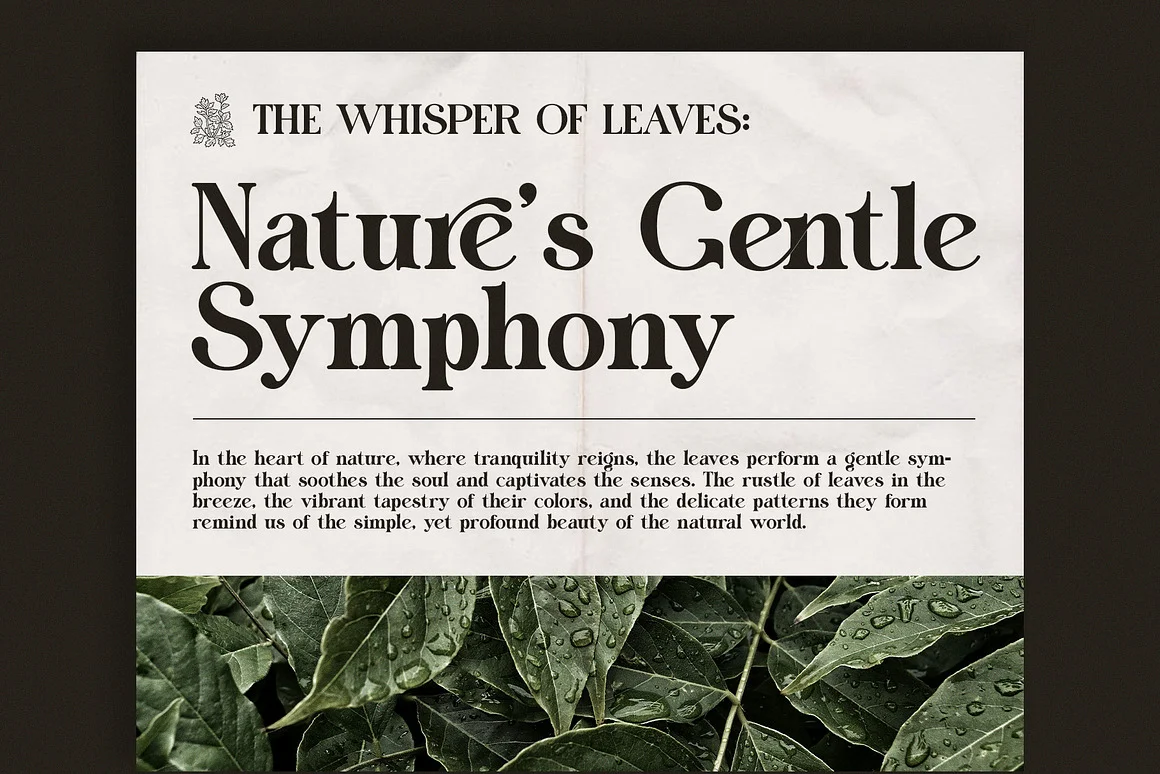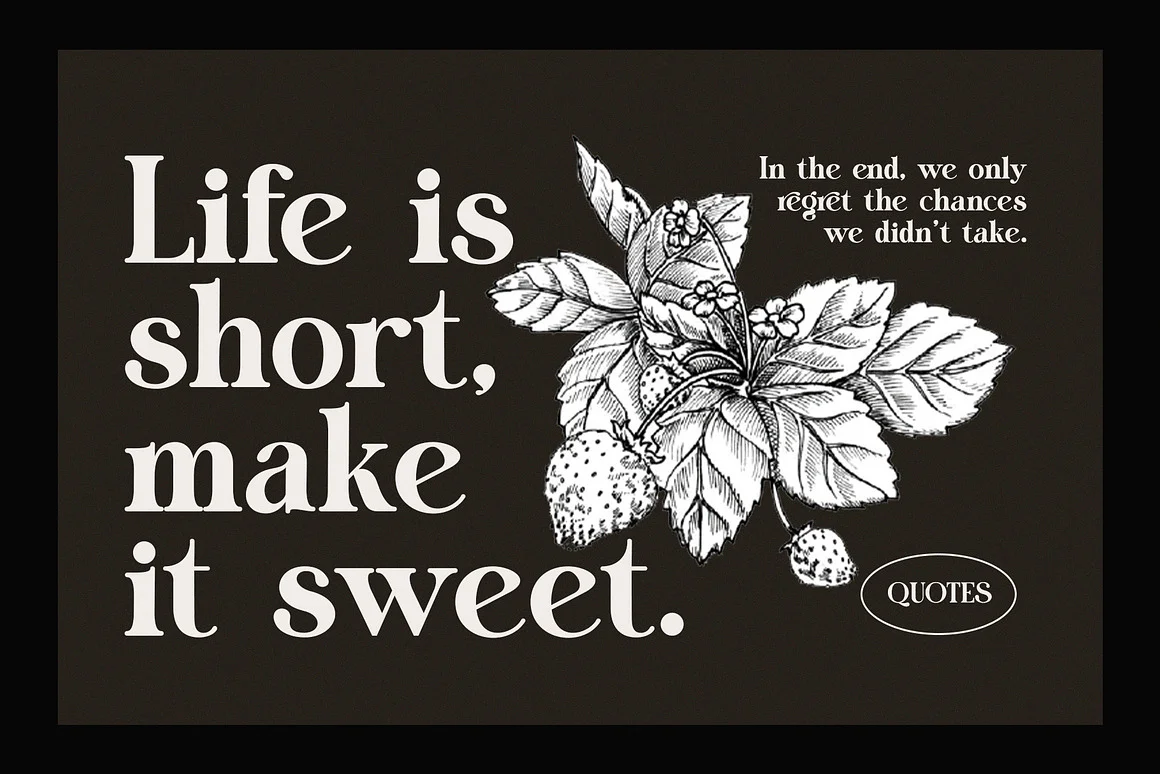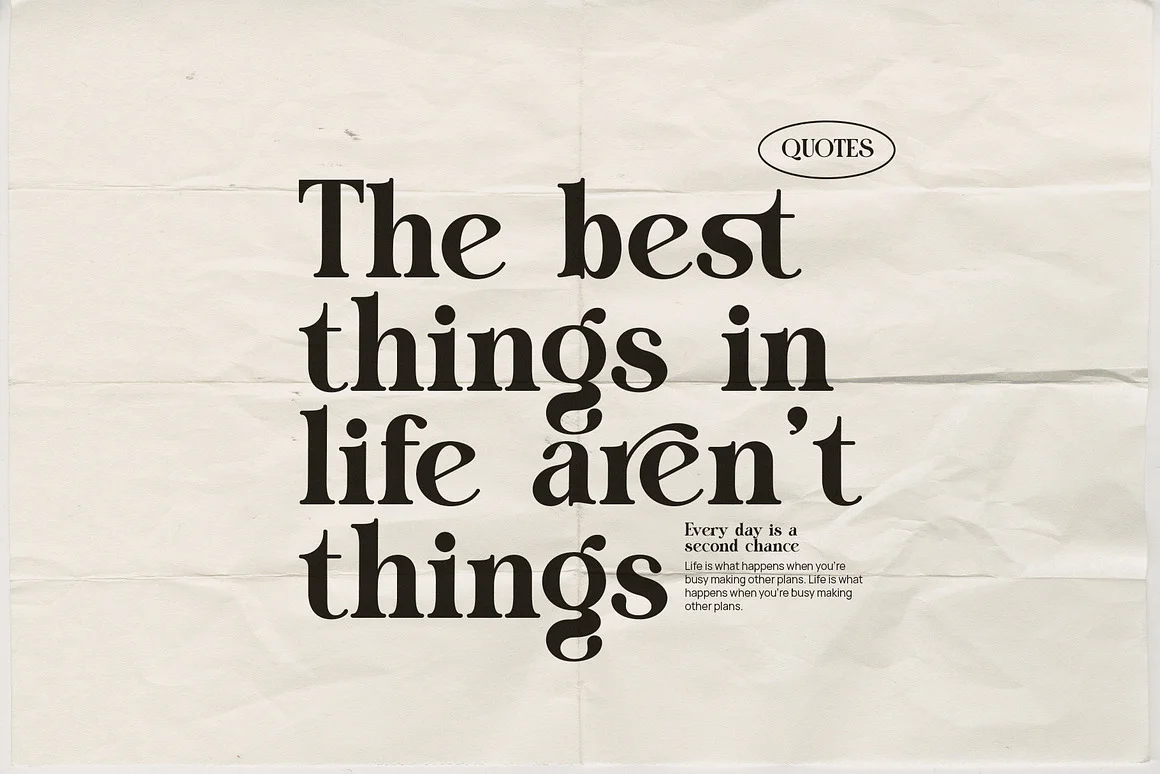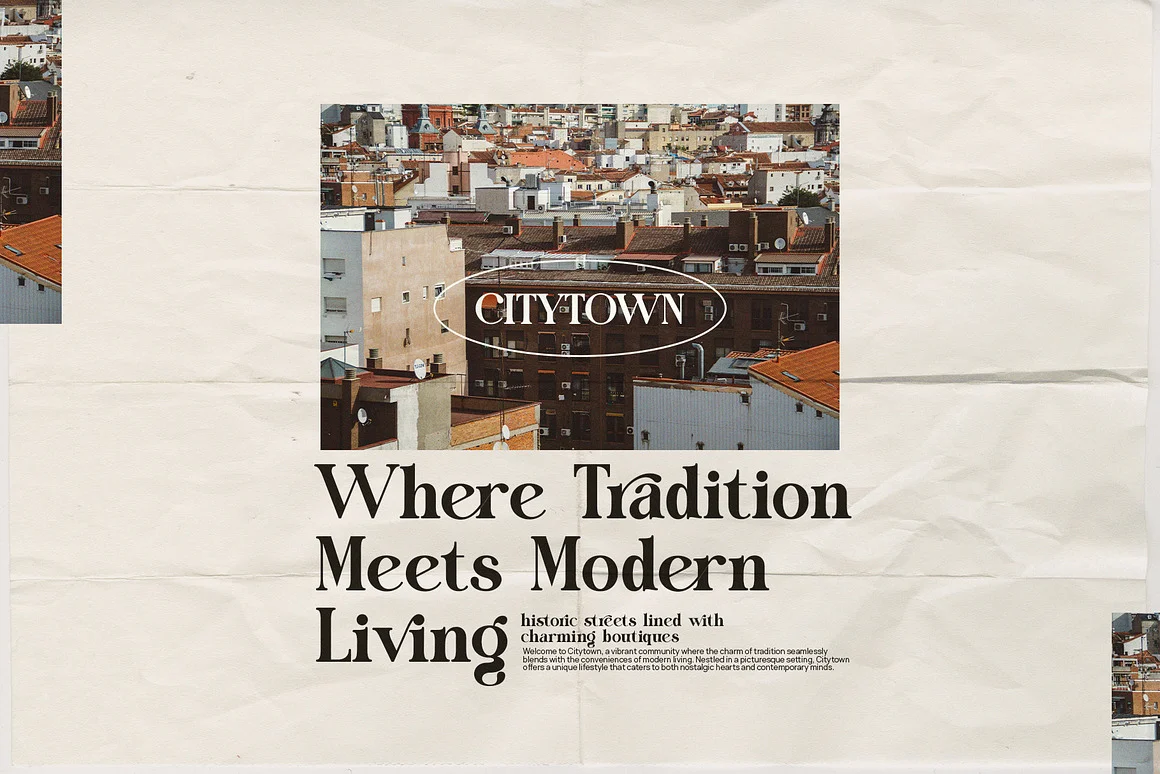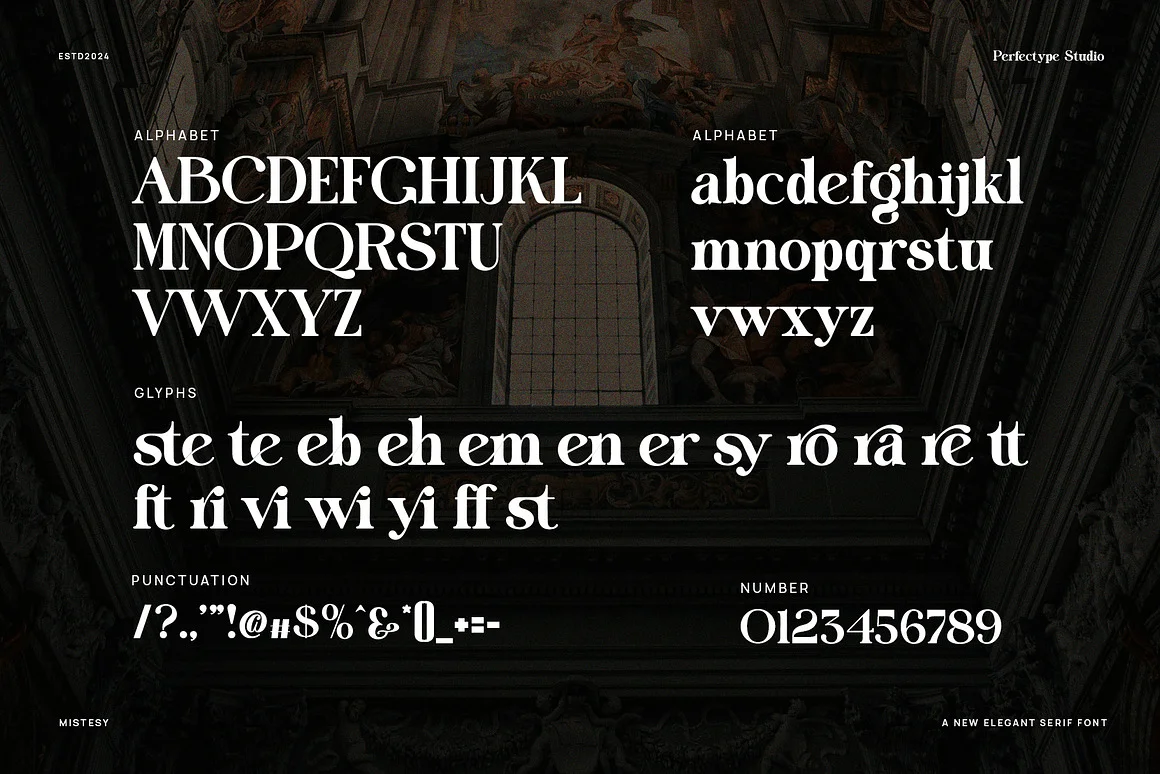
Mistesy Modern Serif Font
Mistesy Modern Serif offers a fresh typographic approach that balances visual appeal with exceptional legibility.
Add Mistesy Modern Serif to your toolkit and discover how it elevates everything from quick social posts to complex brand identities.